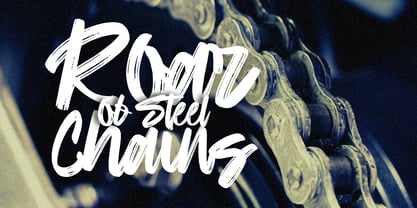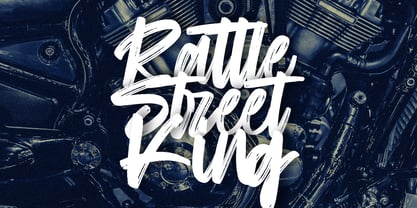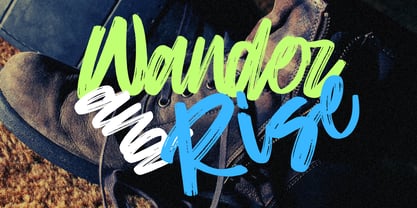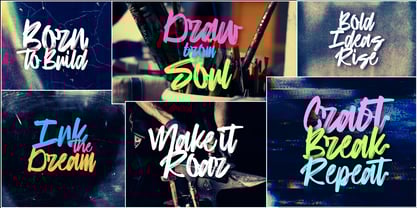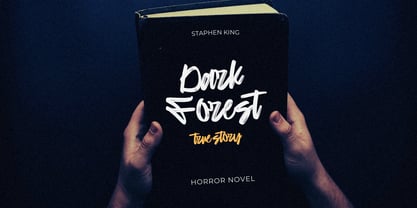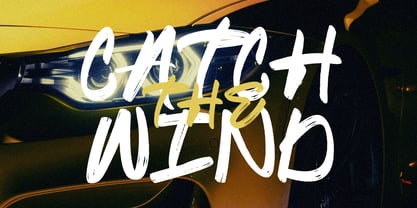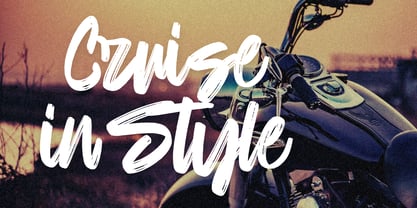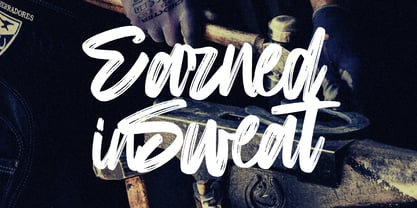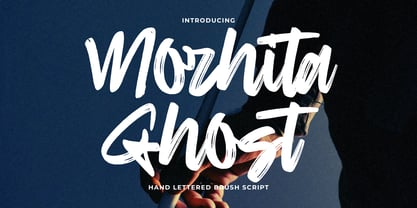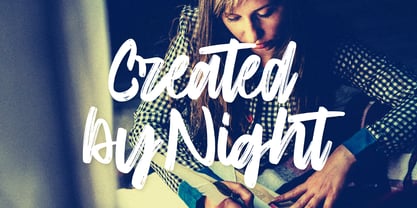
Morhita Ghost
Die Schriftfamilie Morhita Ghost wurde von khaidir entworfen und von Gatype veröffentlicht. Morhita Ghost enthält 1 Stile.
Morhita Ghost is a bold brush script with rugged, hand drawn charm. Crafted with real brush pen strokes, it delivers a natural texture and expressive personality. Slightly rough yet intentional, each letter carries a handcrafted touch that brings your designs to life.
Ideal for clothing designs, posters, book titles, branding, quotes, logos, packaging, invitations, and more this font blends boldness with authenticity in every stroke.